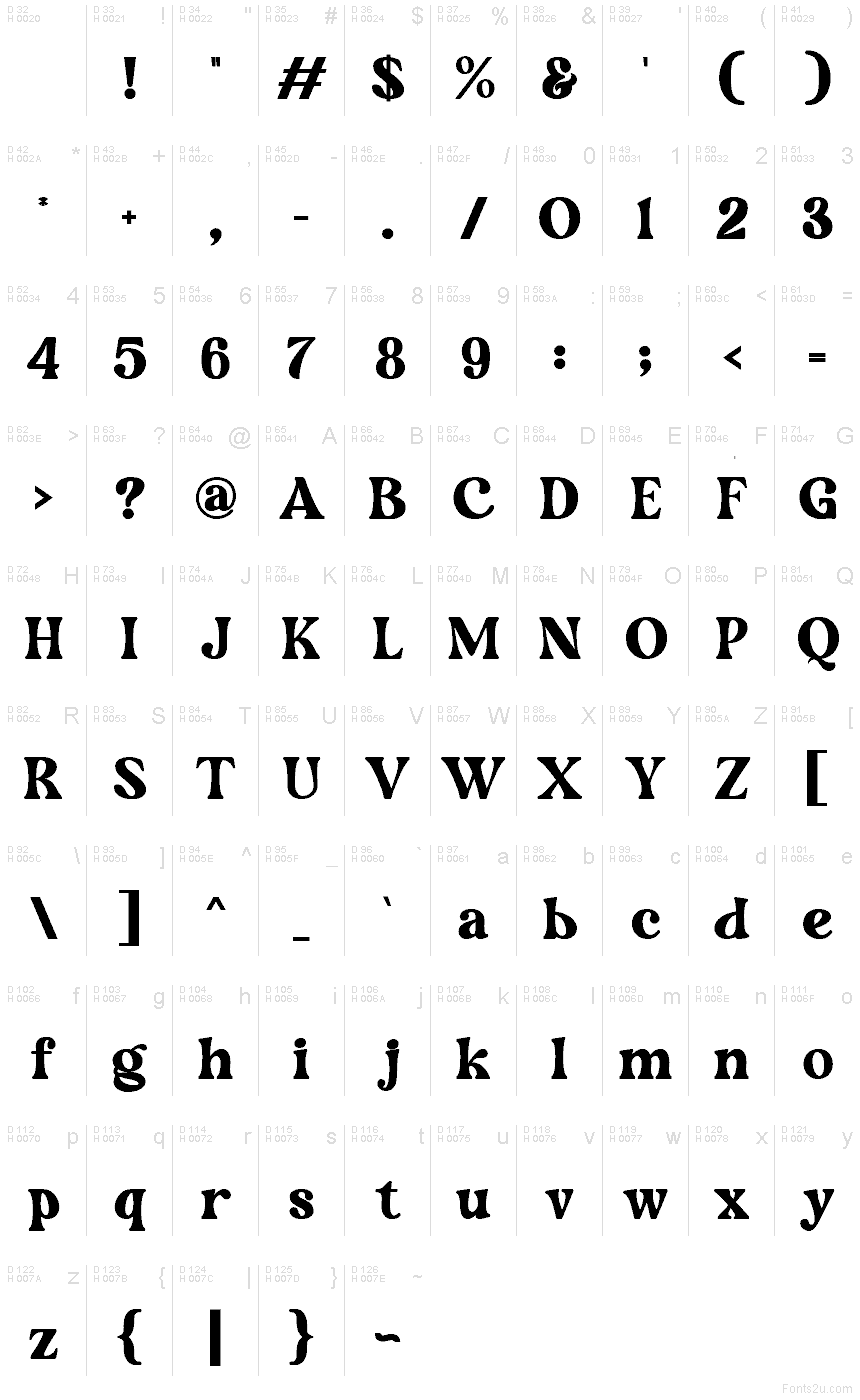
Slikren
Slikren font by Ermedia Studio is a free decorative display serif font. Its personality comes from thick, inky strokes and soft, bulb-like serifs that feel hand‑carved, giving words a lush, almost velvety silhouette. The rhythm wobbles just enough to feel human, while the heavy forms lock up into bold, high-contrast headlines that read with surprising clarity.
Using Slikren, titles snap with character on boutique logos, artisanal packaging, editorial covers, posters, café menus, album art, and event invitations. Set it large with slightly tight tracking to let those rounded edges kiss. For body copy, pair this free font with a clean, neutral sans to keep the focus on Slikren’s sculpted drama.